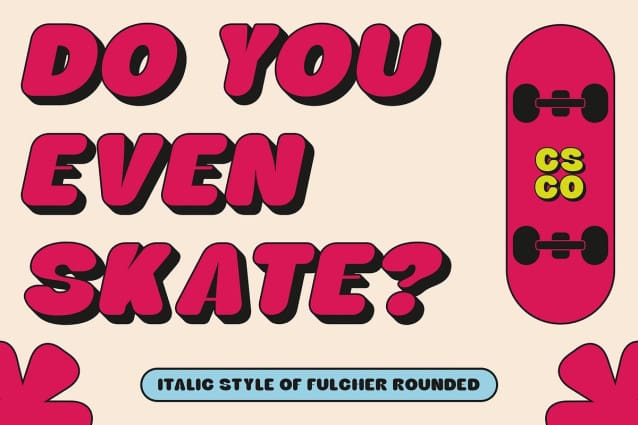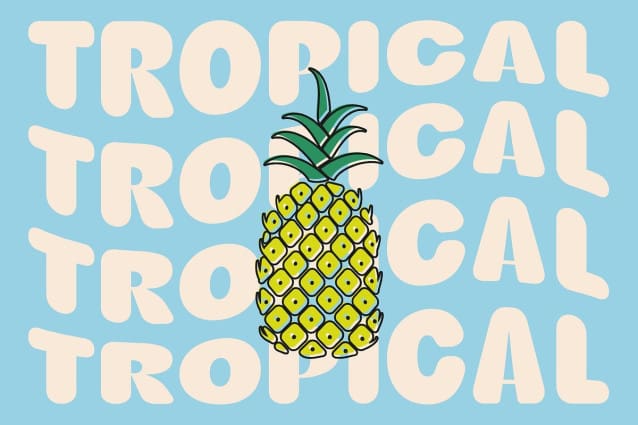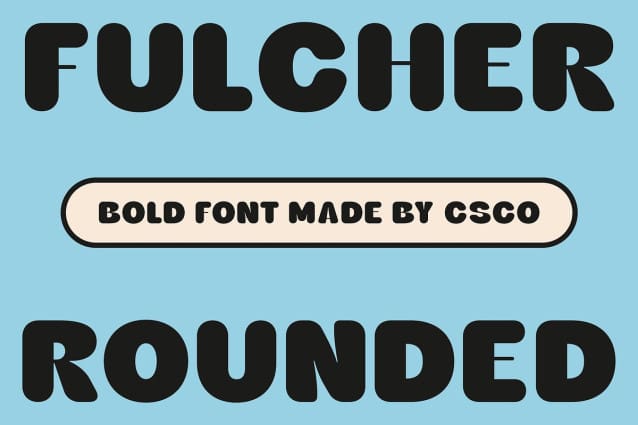
Fulcher Rounded Font
Fulcher Rounded Font is a bold, modern sans serif font that masterfully combines strong, thick strokes with soft, curved edges. Its bold weight ensures a powerful presence, making it perfect for headlines, branding, and other designs where impact and emphasis are key. The font’s rounded shapes provide a friendly, approachable feel, striking a balance between strength and warmth. This contrast creates a design that’s both eye-catching and inviting, ideal for contemporary projects that want to make a statement without being overly harsh.
Contemporary Design with Friendly Appeal The rounded edges of Fulcher Rounded soften the boldness of its thick lines, giving the font a modern, clean aesthetic that remains approachable and welcoming. This unique combination makes it suitable for a wide range of applications, from tech startups and creative agencies to lifestyle brands.
Versatile for Headlines and Branding Fulcher Rounded’s strong visual presence and rounded shapes make it perfect for designs that need to stand out. Its bold weight ensures that it captures attention in headlines, while the soft curves provide a sense of approachability and warmth. This makes it ideal for projects that want to convey professionalism without sacrificing a sense of personality or warmth.